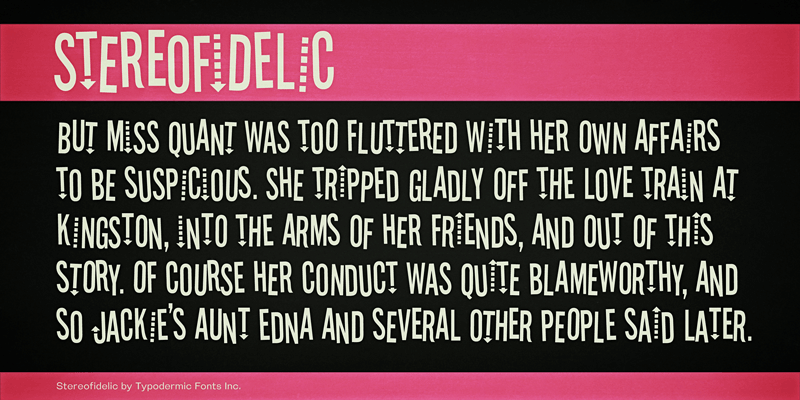
Stereofidelic is a fun, narrow headline font, created in 1999. The latest version has a lot of redrawn characters and a new set of alternates. In OpenType savvy applications, letters are automatically shuffled to create a more random appearance. This font includes a license that allows free commercial use: sometimes referred to as a desktop license. This allows you to install the font on a computer and use it to create posters, web graphics, game graphics, t-shirts, videos, signs, logos and more. Read the license agreement for details. If you'd like to embed this font in an app, ebook, on the web or anything that's not covered by the desktop license agreement, visit the link below. You'll find distributors who offer different types of licenses or you can contact me for help. http://typodermicfonts.com/stereofidelic-font/ |